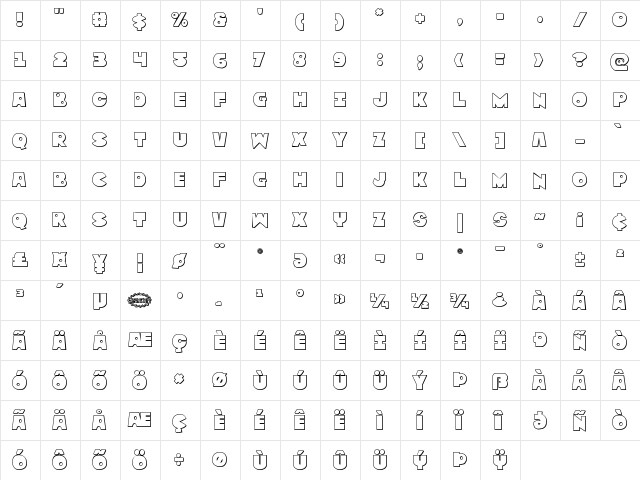
Zounderkite Outline
Design Context for Zounderkite Outline Typeface
Zounderkite Outline brings ornamental detail and strong personality to headlines and identities, where visual impact matters more than quiet functionality.
Font Pairing: Pair with a clean neutral sans-serif for body copy to let Zounderkite Outline's character lead without overwhelming the composition.
Pro Tip: Treat Zounderkite Outline as the centrepiece of your typographic hierarchy. One strong heading set in a decorative face can carry an entire layout.